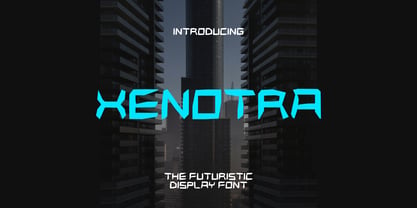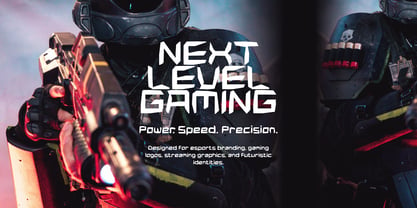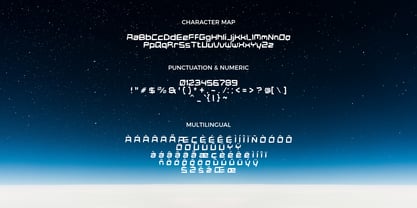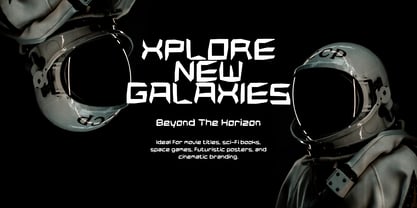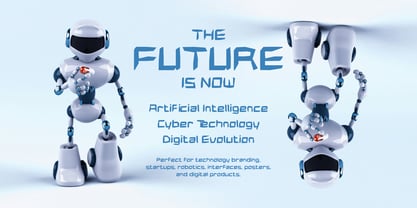
Xenotra
by Mei Suseno
The Xenotra Font Family was designed by Wahyu Eka Prasetya, Mei Suseno and published by Mei Suseno. Xenotra contains 3 styles and family package options. More about this family
XENOTRA is a bold futuristic display font inspired by sci-fi technology, cyberpunk aesthetics, and modern digital design. Featuring sharp geometric edges and powerful angular letterforms, it delivers a strong visual impact for logos, gaming titles, esports branding, movie posters, technology projects, UI designs, and futuristic advertising. XENOTRA combines innovation and precision to create eye-catching typography that stands out across both digital and print media.
Designers: Wahyu Eka Prasetya, Mei Suseno
Foundry: Mei Suseno